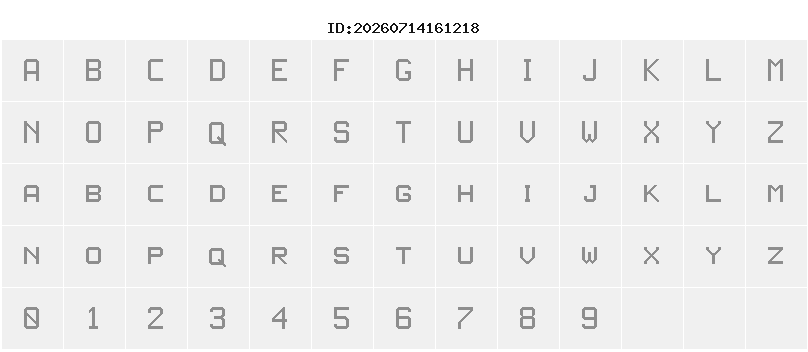
• Font Name: JD LED3
• Full Font Name: JD LED3 Regular
• Designer: Jecko Development
• Description: “JD LED3” was built with FontStruct
About JD LED3.ttf
JD LED3.ttf is a modern, elegant sans-serif font designed for ultimate readability and visual harmony. Perfect for branding, headlines, web design, and print materials.